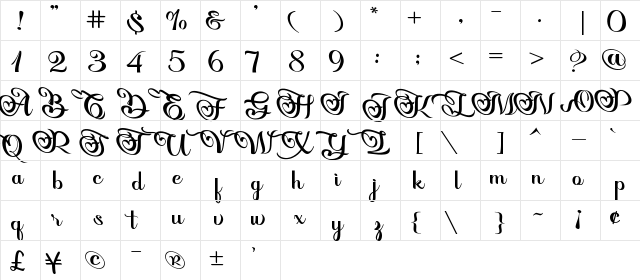
Onarie Regular
| Designer | Subectype. 2019 |
Design Context for Onarie Typeface
Onarie is a composed and adaptable typeface that performs quietly and consistently across a wide range of design contexts.